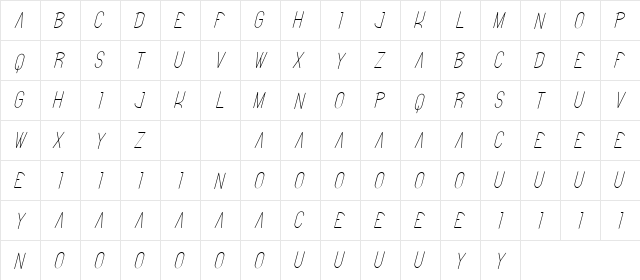
Bitter Space Demo Light Italic
Light Italic · NihStudio Nouval & Sarah Suci P ·
DesignerNouval & Sarah Suci P
Design Context for Bitter Space Demo Typeface
Bitter Space Demo takes a measured approach to typography — its balanced proportions and neutral character make it a reliable workhorse for both digital and print work. The slanted form adds forward momentum and visual energy. The delicate stroke weight brings airiness and refinement to layouts.